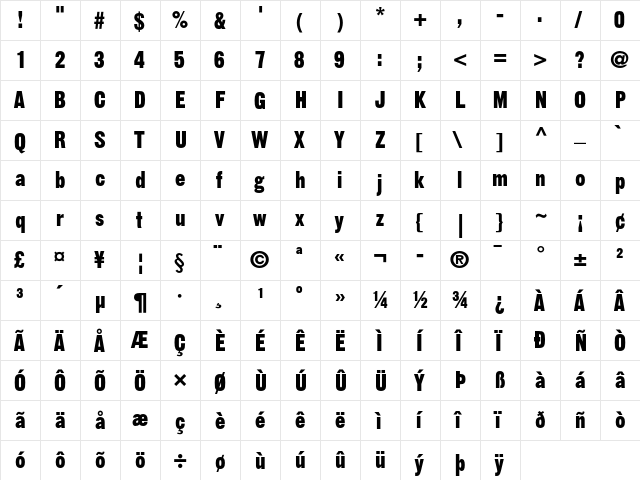
Gothic 13
Design Context for Gothic Typeface
Gothic has the quiet confidence of well-executed sans-serif typography: versatile, unobtrusive, and dependable at any size.
Font Pairing: Works well alongside a characterful serif or display font that can carry the expressive load while Gothic handles the functional copy.
Pro Tip: Use Gothic for UI labels, navigation, and short-form body copy where clean legibility is the priority.